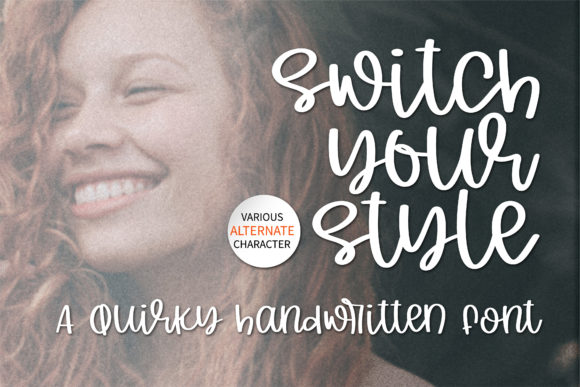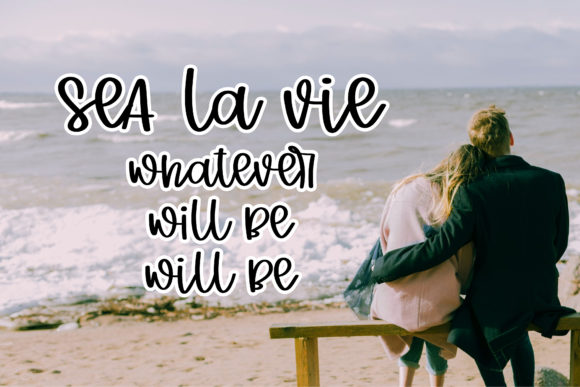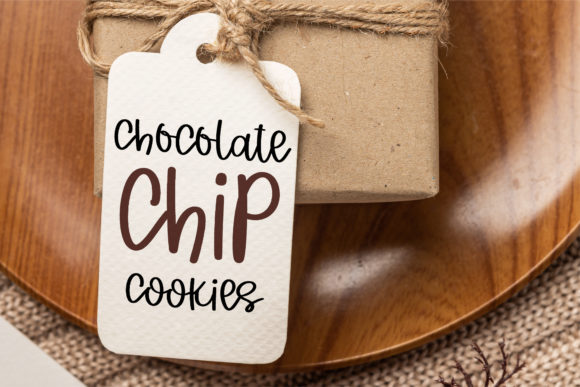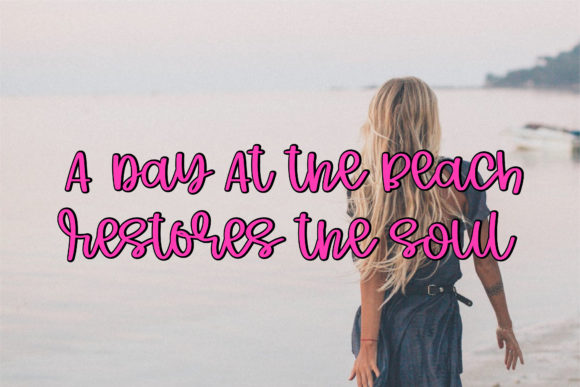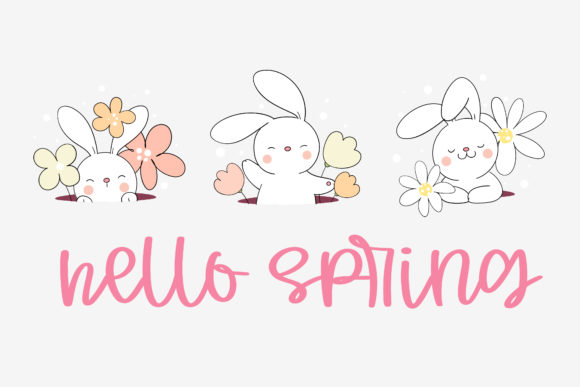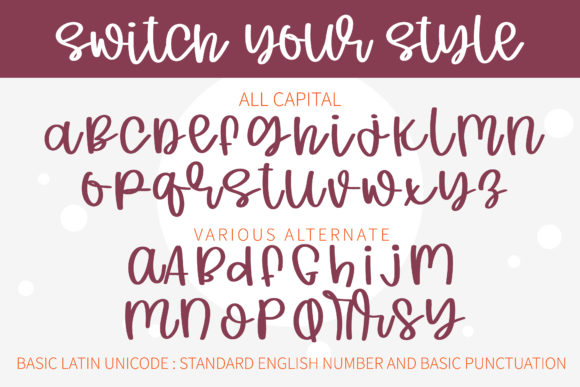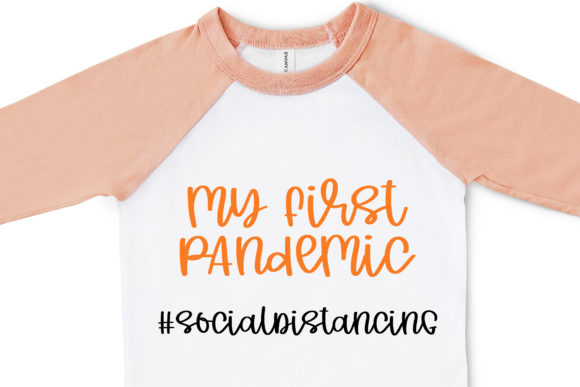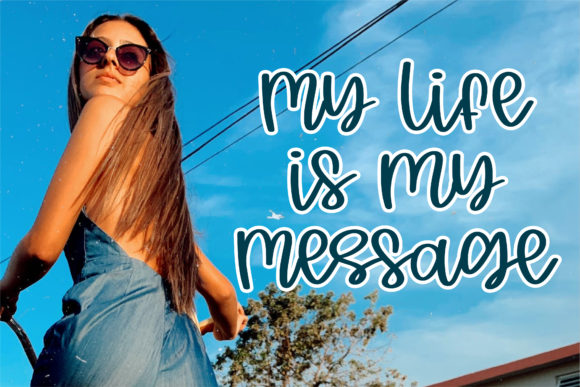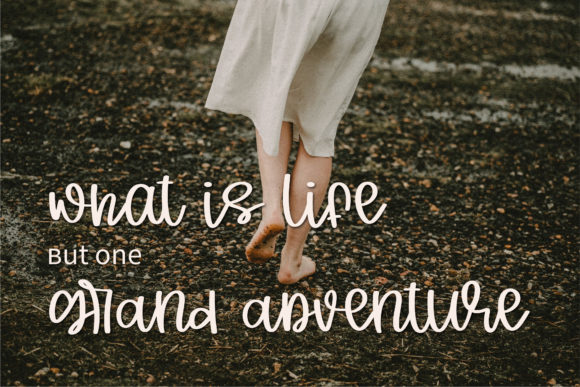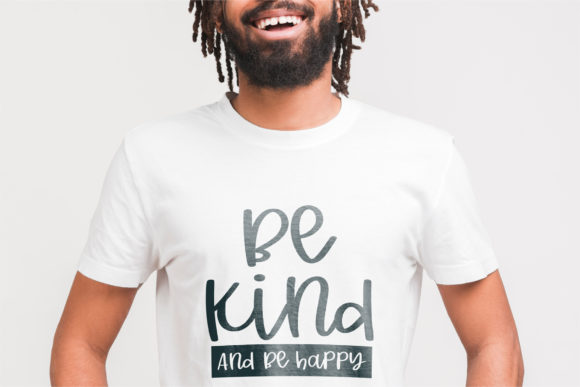
Switch Your Style Font
About Switch Your Style Font
Switch Your Style is a fun and ravishing script font that adds a playful and energetic touch to your designs. With its natural and friendly style, it brings a sense of joy and creativity to your projects. Whether you’re designing logos, posters, invitations, or any other creative work, Switch Your Style will add a unique and lively element.
The fluid and dynamic letterforms of Switch Your Style give it a sense of movement and spontaneity. The varying stroke widths and playful connections between letters create a whimsical and captivating appearance. This font is perfect for projects that require a cheerful and vibrant look, such as children’s books, party invitations, or anything that aims to evoke a sense of fun and excitement.
Switch Your Style’s versatility allows it to be used in various design contexts. Its friendly and approachable nature makes it suitable for designs targeting a wide range of audiences. Whether you’re creating designs for a young and playful audience or aiming for a more casual and relaxed vibe, Switch Your Style will help you achieve the desired effect.
With the font being PUA encoded, you have easy access to all the additional glyphs and swashes it offers. This means you can further customize your designs by incorporating stylish swashes, ligatures, and alternate letterforms to create a more personalized and unique look.
In summary, Switch Your Style is a fun and ravishing script font that adds a playful and energetic touch to your designs. Its natural and friendly style makes it suitable for a variety of projects, allowing you to unleash your creativity and explore different design possibilities. With easy access to additional glyphs and swashes, you can truly make your designs stand out and leave a lasting impression.